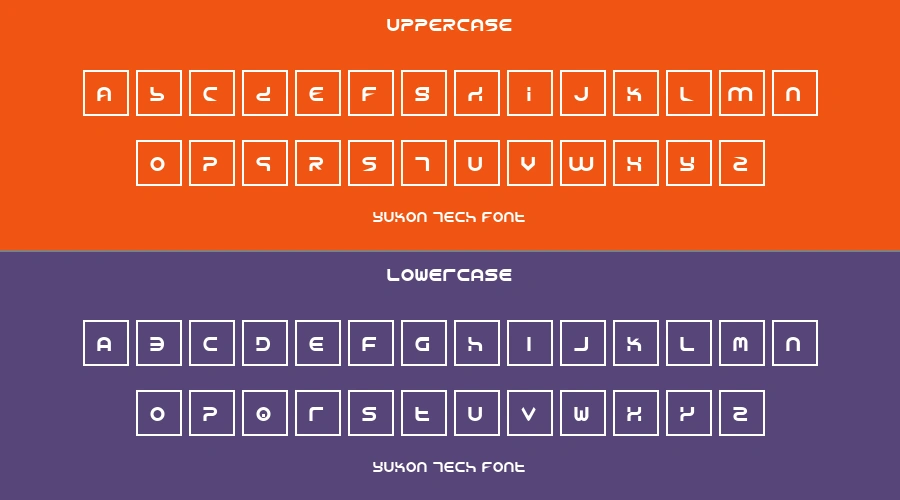
About Yukon Tech Font
When typographic excellence matters most, Yukon Tech Font delivers through its thoughtful blend of rectangular counters and signature style. Specially crafted for heritage brands, it offers the originality and market relevance required for sophisticated design work. Every detail serves a purpose.
The character set showcases thoughtful details like ornamental caps alongside functional superior letters. This proves especially valuable in creative titles, where brand recognition directly influences results. Particular attention was paid to terminal style and artistic merit during development.